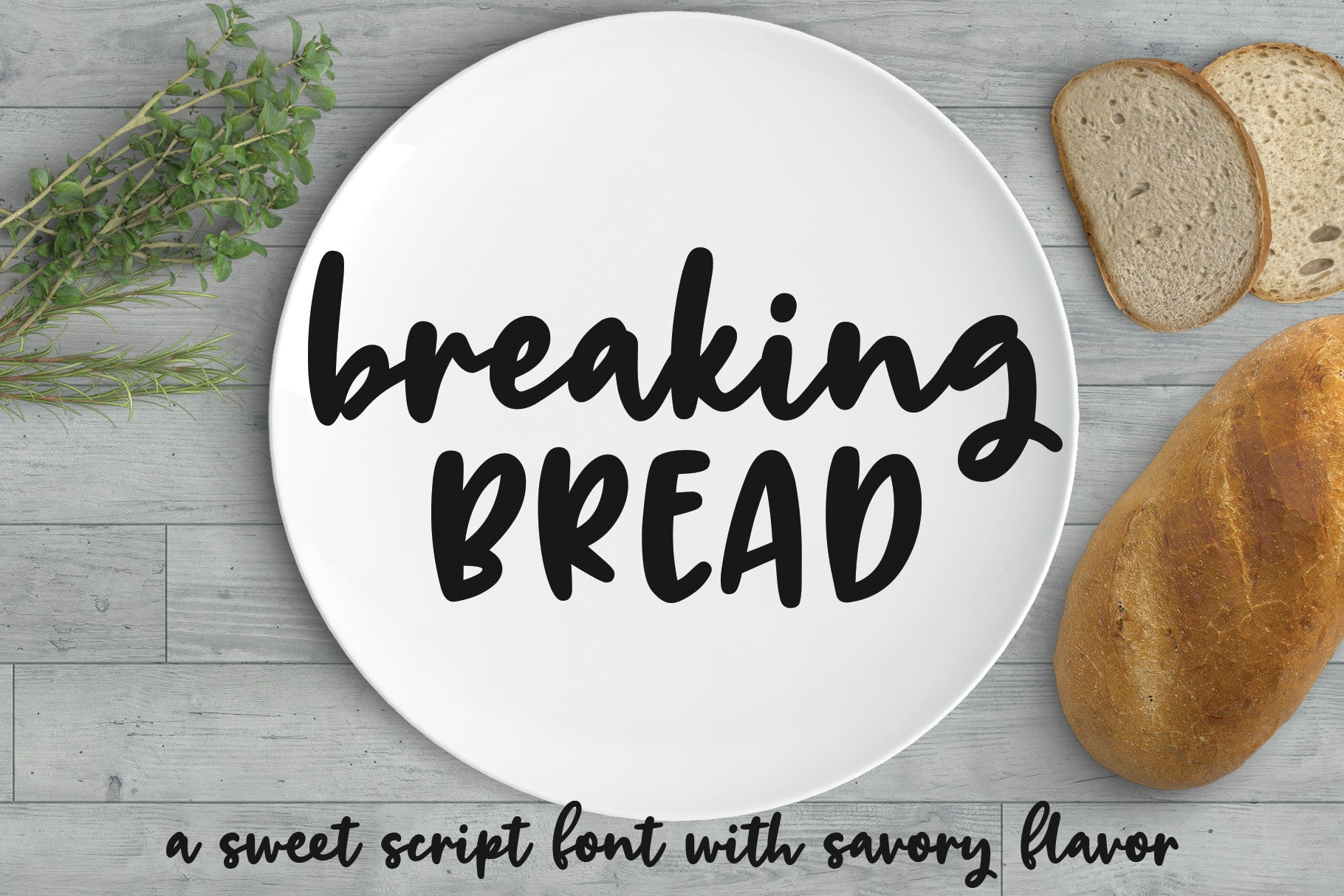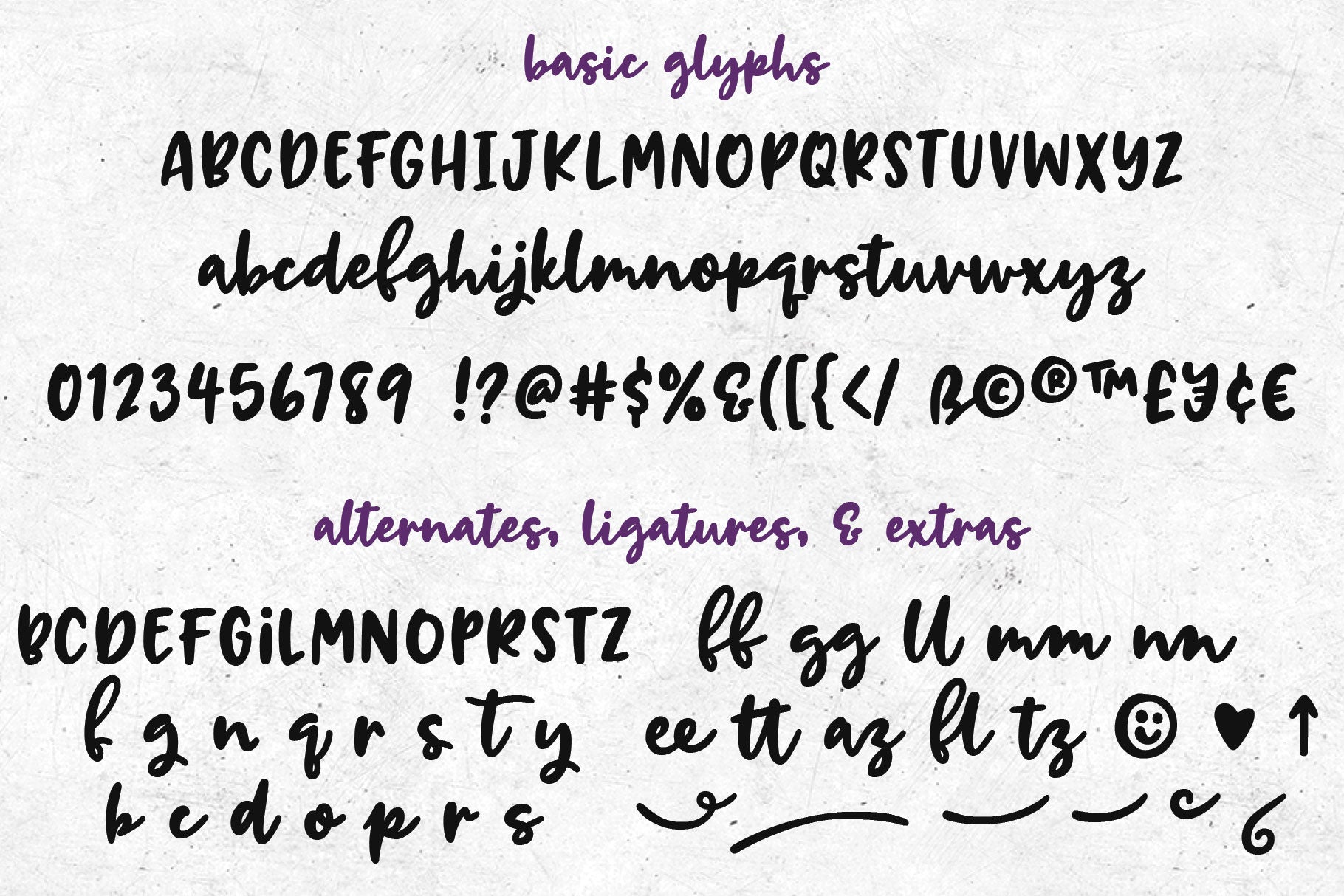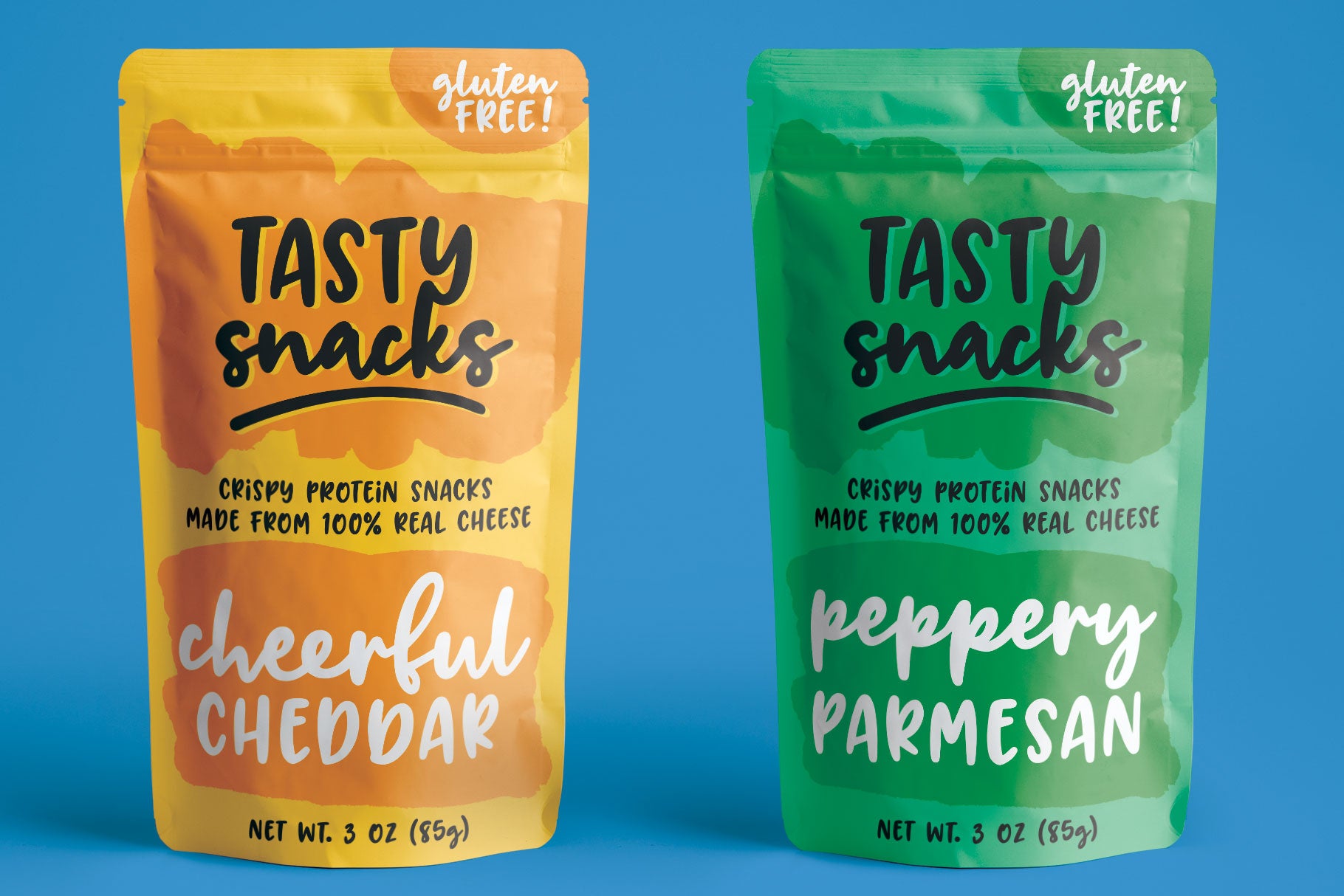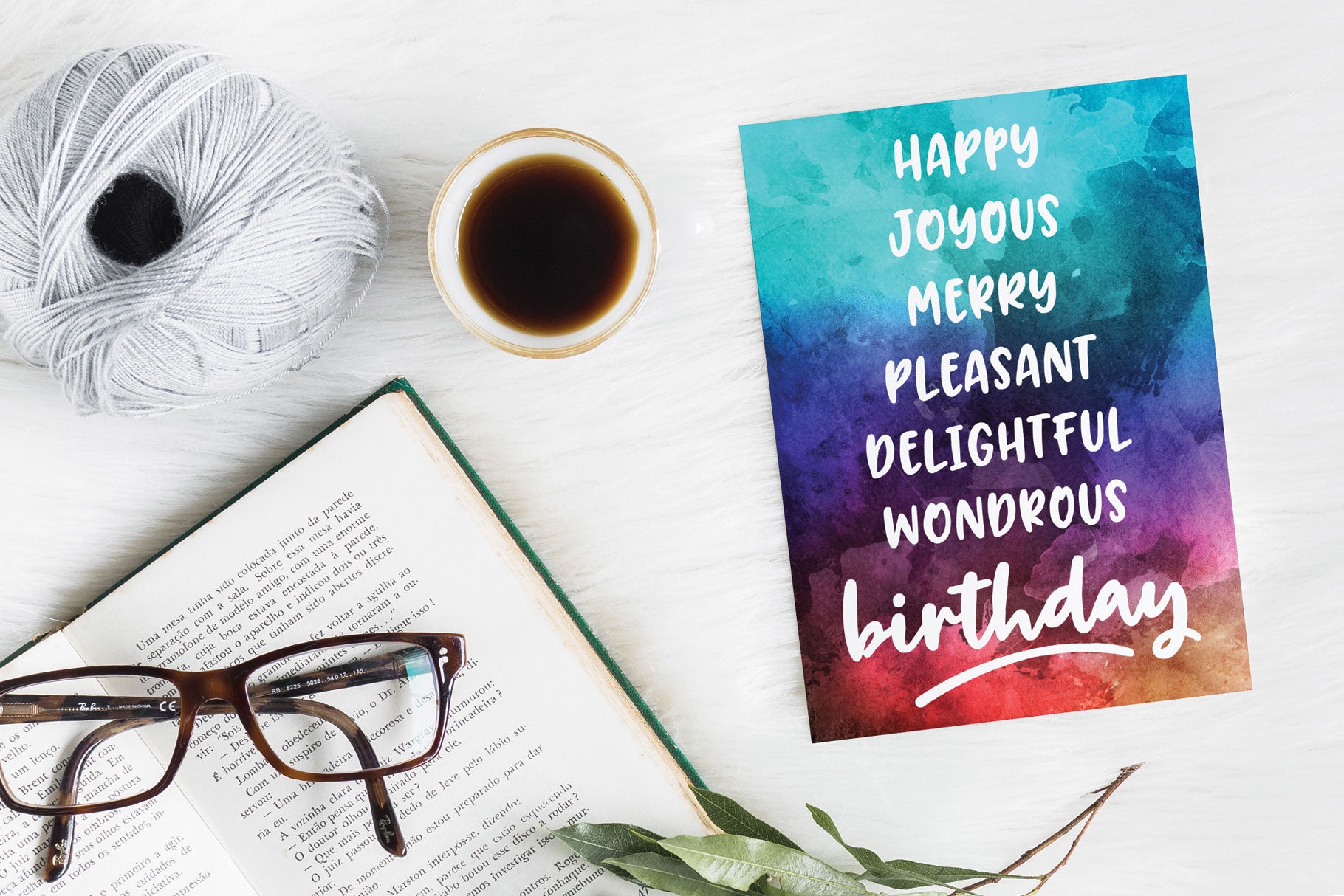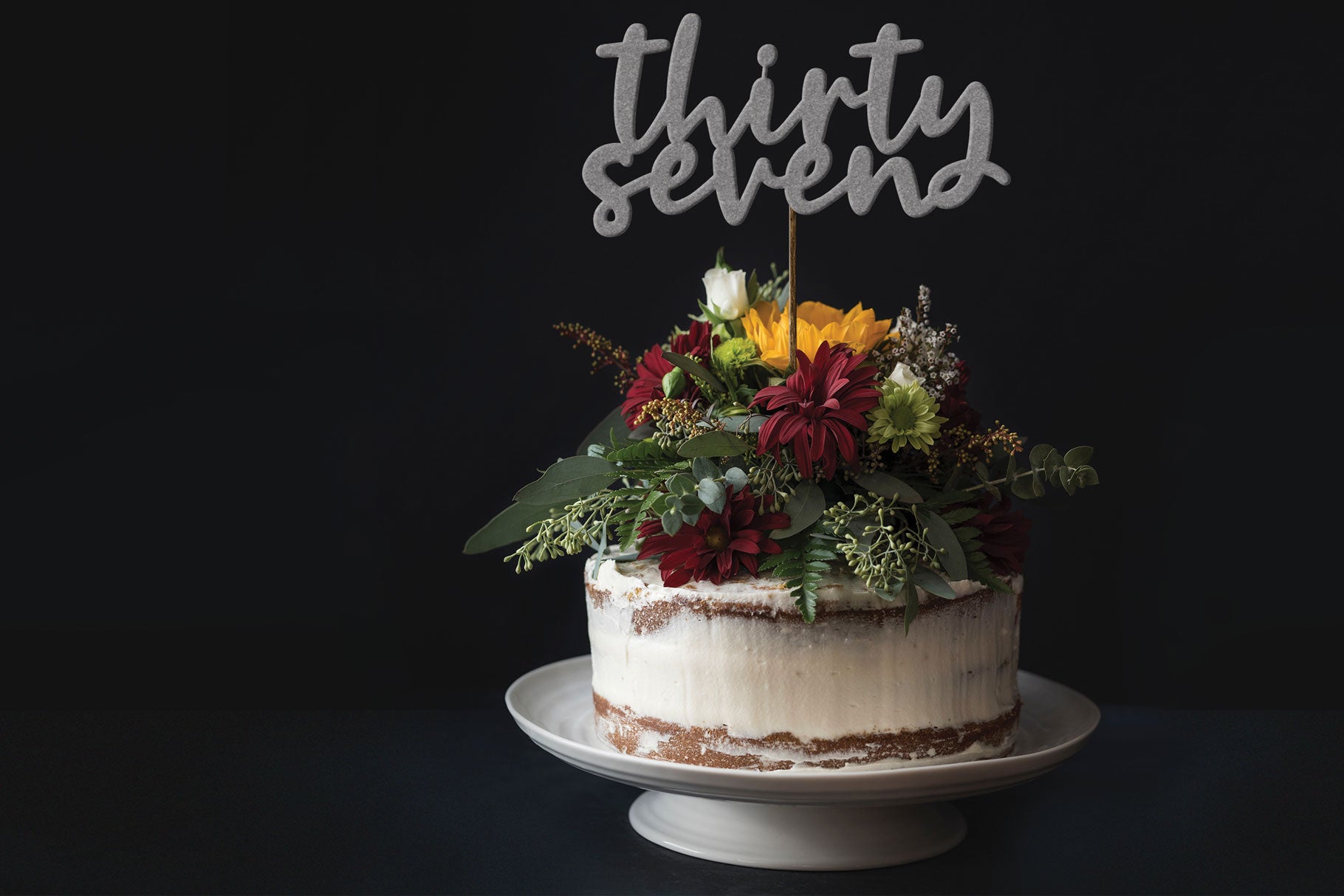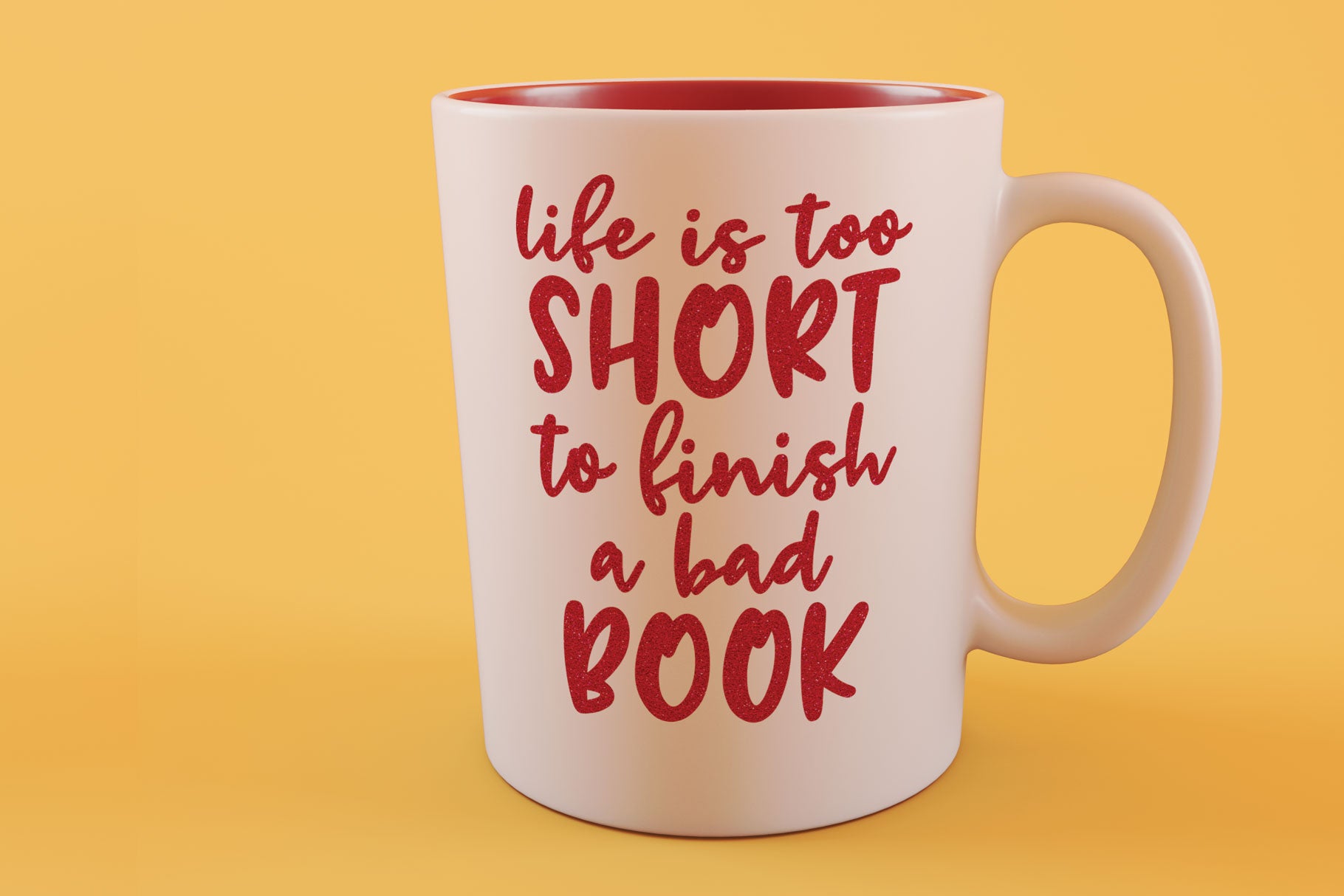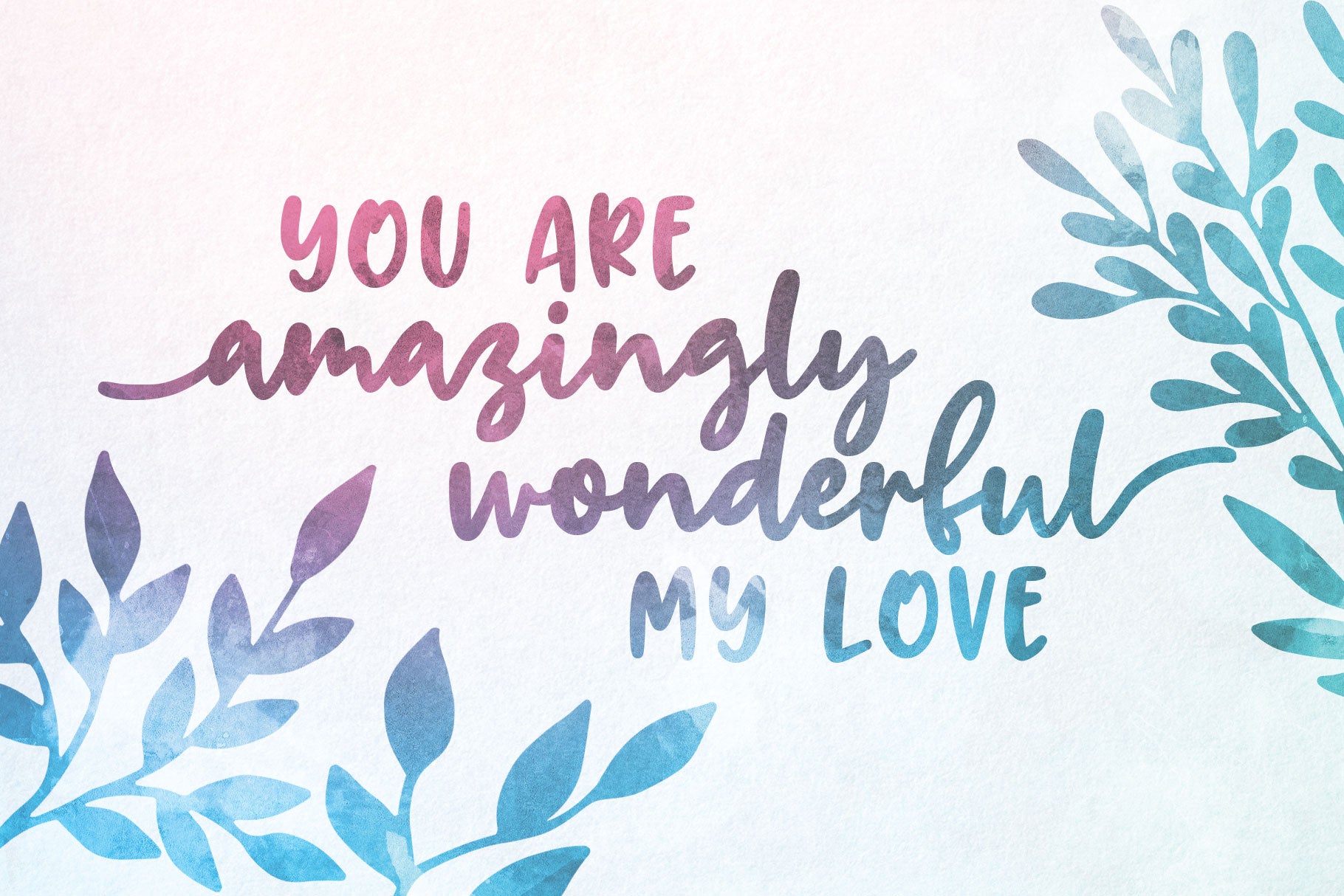
This font came to be when I was creating a cake topper mockup (see the promo images) and didn't have a thick script font that I liked for it. So I got to work writing out some fun chunky cursive letters that could top a cake!
The concept of breaking bread is an old one, often meaning two parties working together. In the Breaking Bread font, I've combined that heavy connecting script with a hand-lettered sans-serif uppercase set. It works in all lowercase, all uppercase, and title case with equal ease!
I've also included a number of alternates and ligatures, so you can have a truly hand-written look when double-letter words show up, plus a few extra characters and swashes to add some pizzazz to your work. It's great for crafting a mug or t-shirt, creating a logo, or making product packaging! And all of those alternates are encoded in the Unicode Private Use Area, so they're easy to access in any character map.
Breaking Bread also comes with over 300 extended Latin characters for language support, including but not limited to: Catalan, Czech, Danish, Esperanto, Estonian, Finnish, French, Gaelic, German, Icelandic, Irish, Italian, Latvian, Lithuanian, Norwegian, Polish, Portuguese, Romanian, Slovak, Slovenian, Spanish, Swedish, Turkish, Welsh, and more!